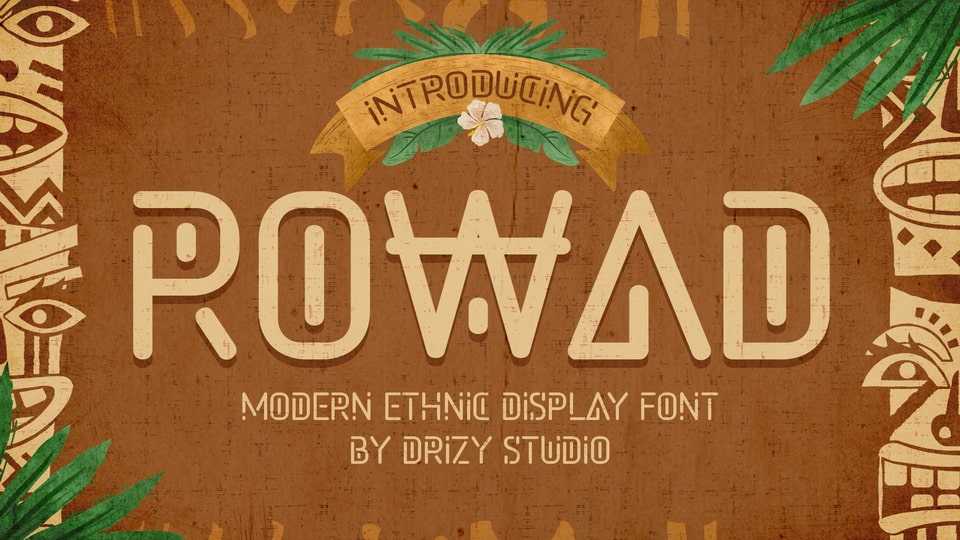
Download Rowad font, a modern ethnic display typeface with a unique voice. Rowad offers offering all the basic styles you will need for a successful project.
Designer: Drizy Studio